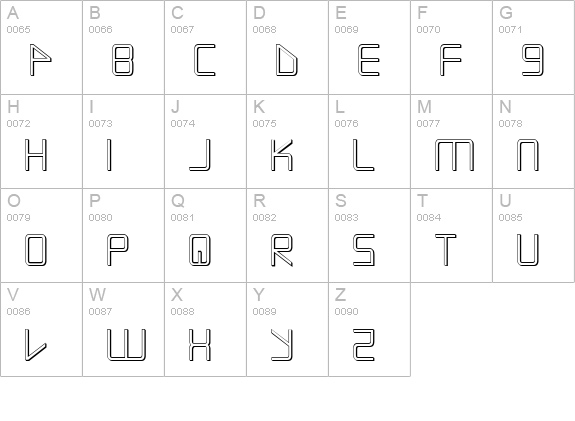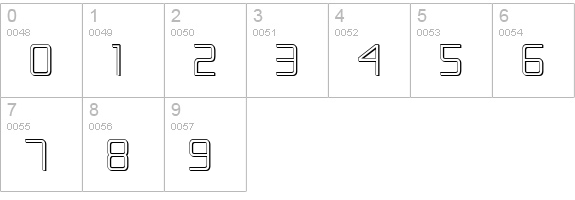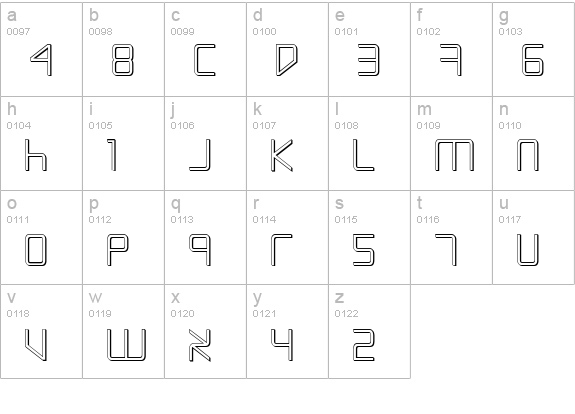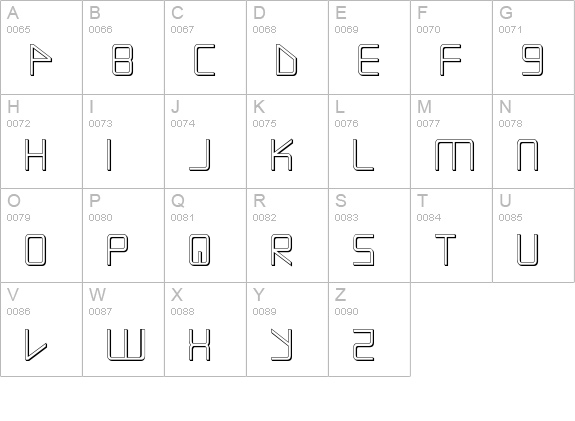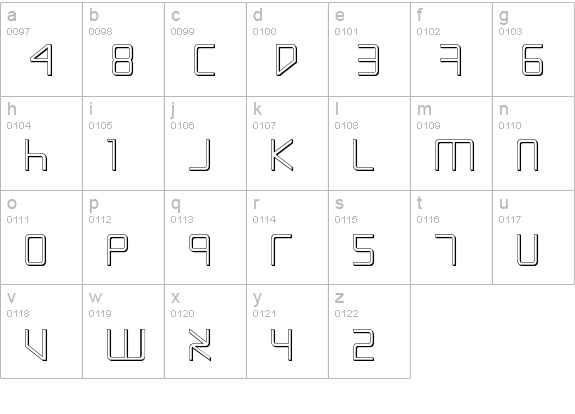
Escape Artist Shadow font is a captivating and dynamic typeface that brings a sense of mystery and intrigue to any design project. This unique font features intricate details and a shadow effect that adds depth and dimension to your text. Whether you're creating a poster, logo, or website design, Escape Artist Shadow font is sure to make a bold statement. The best part? Escape Artist Shadow font is available for free download at FontsMarket.com. This means you can easily add this eye-catching font to your collection without any cost. Don't miss out on the opportunity to enhance your designs with the striking Escape Artist Shadow font. Download it today and let your creativity shine!